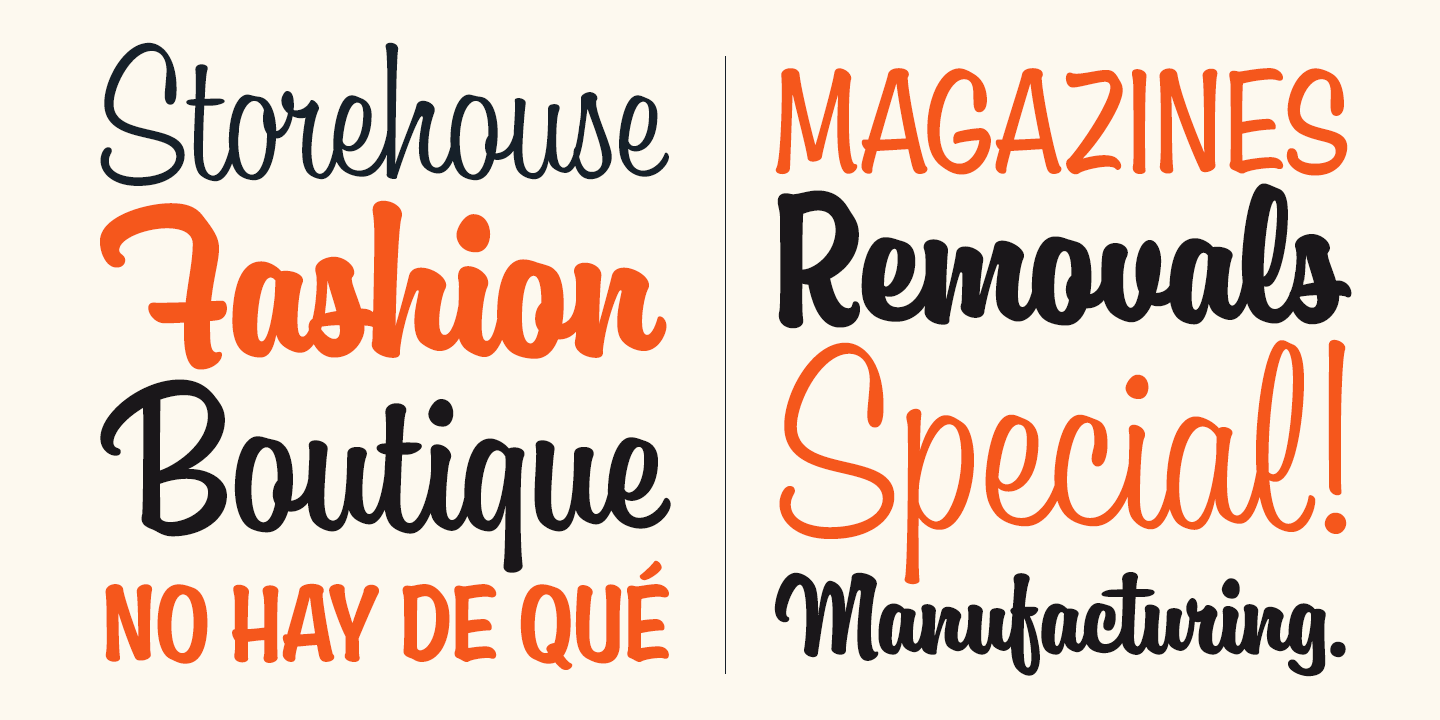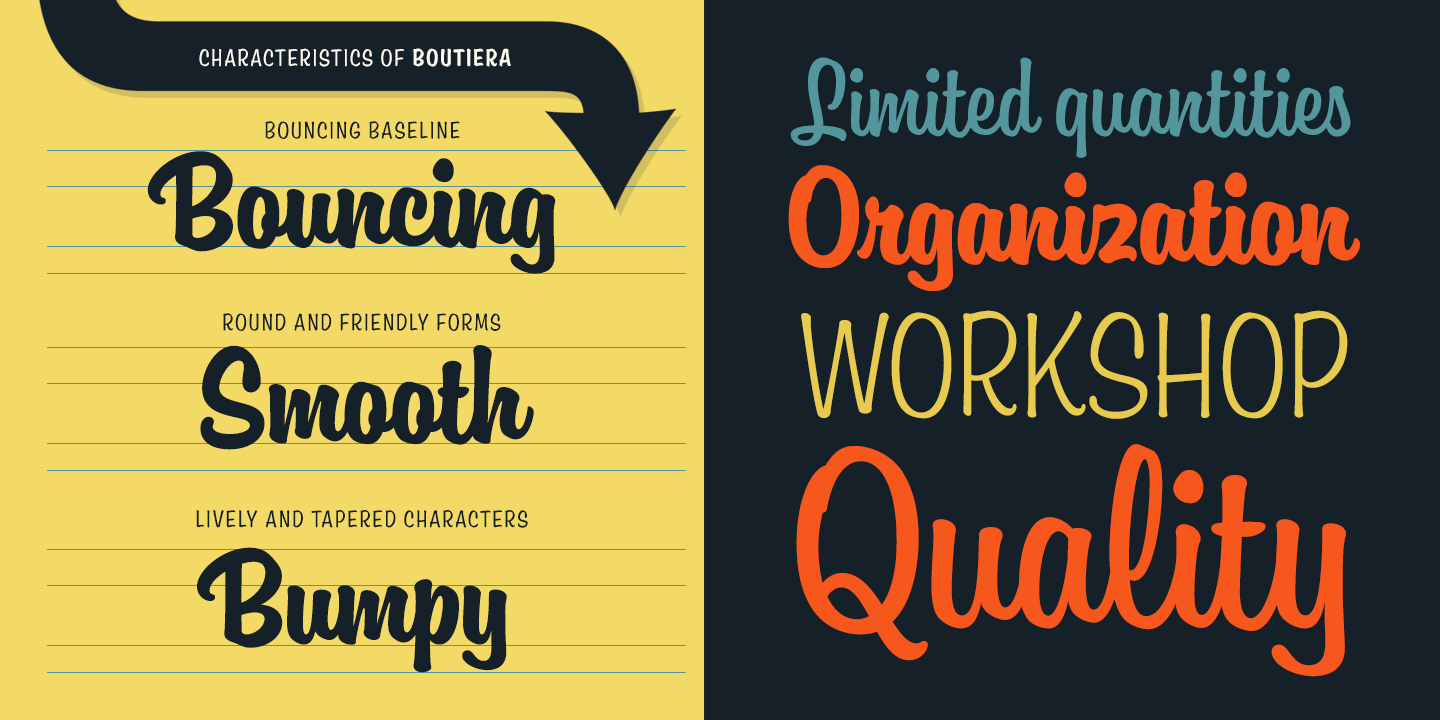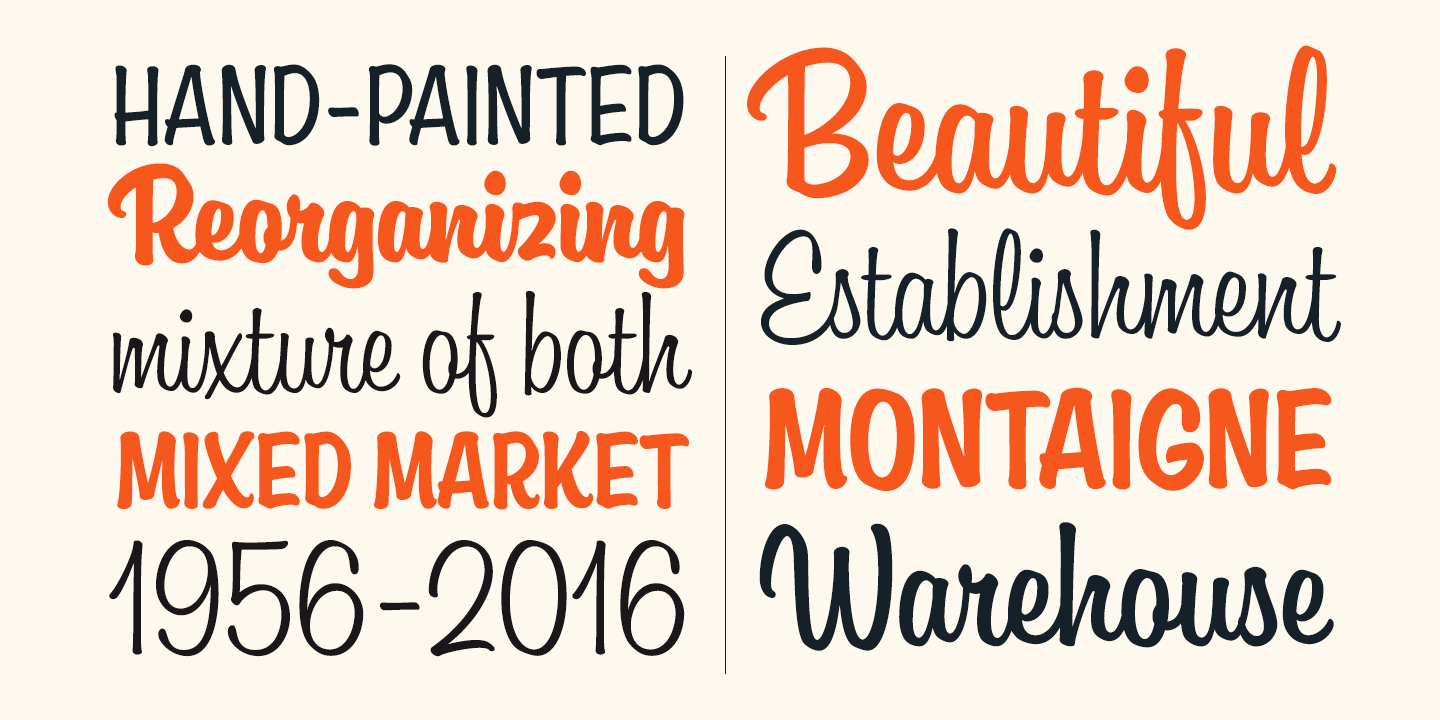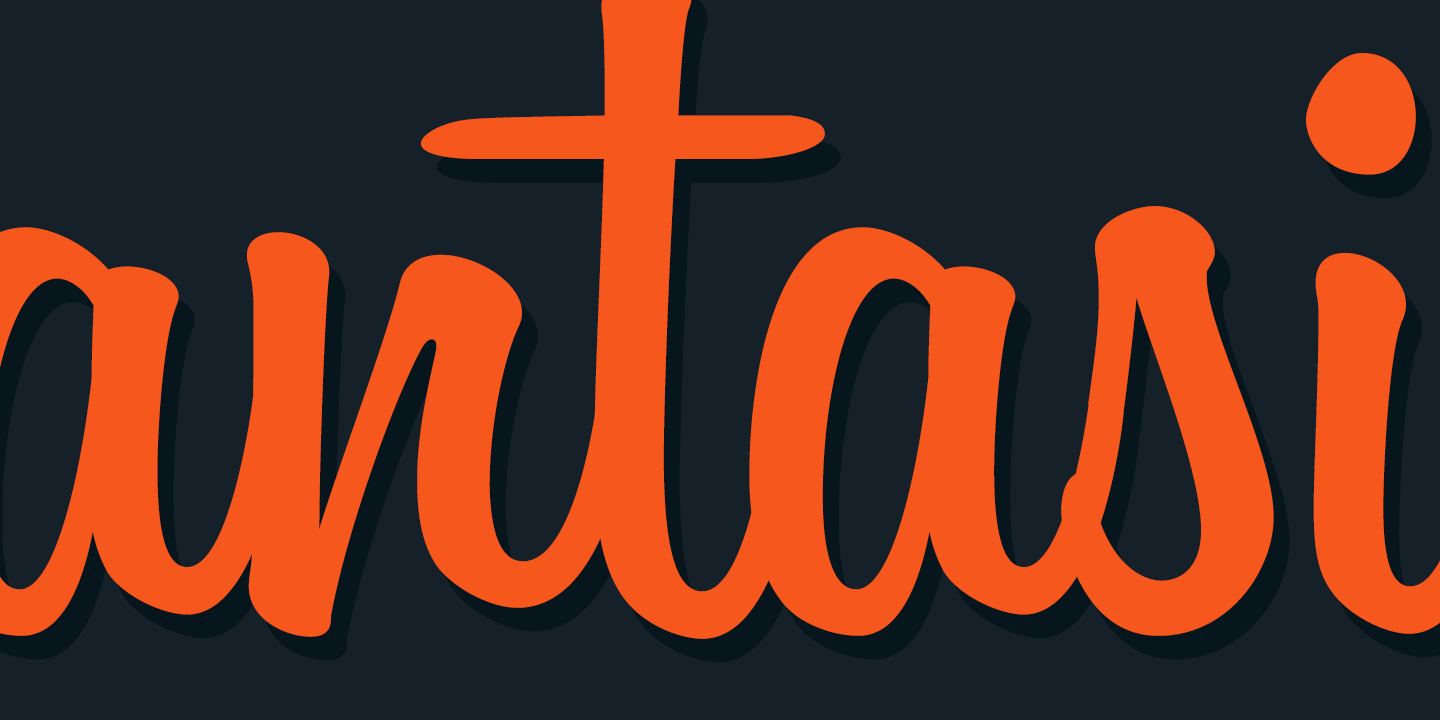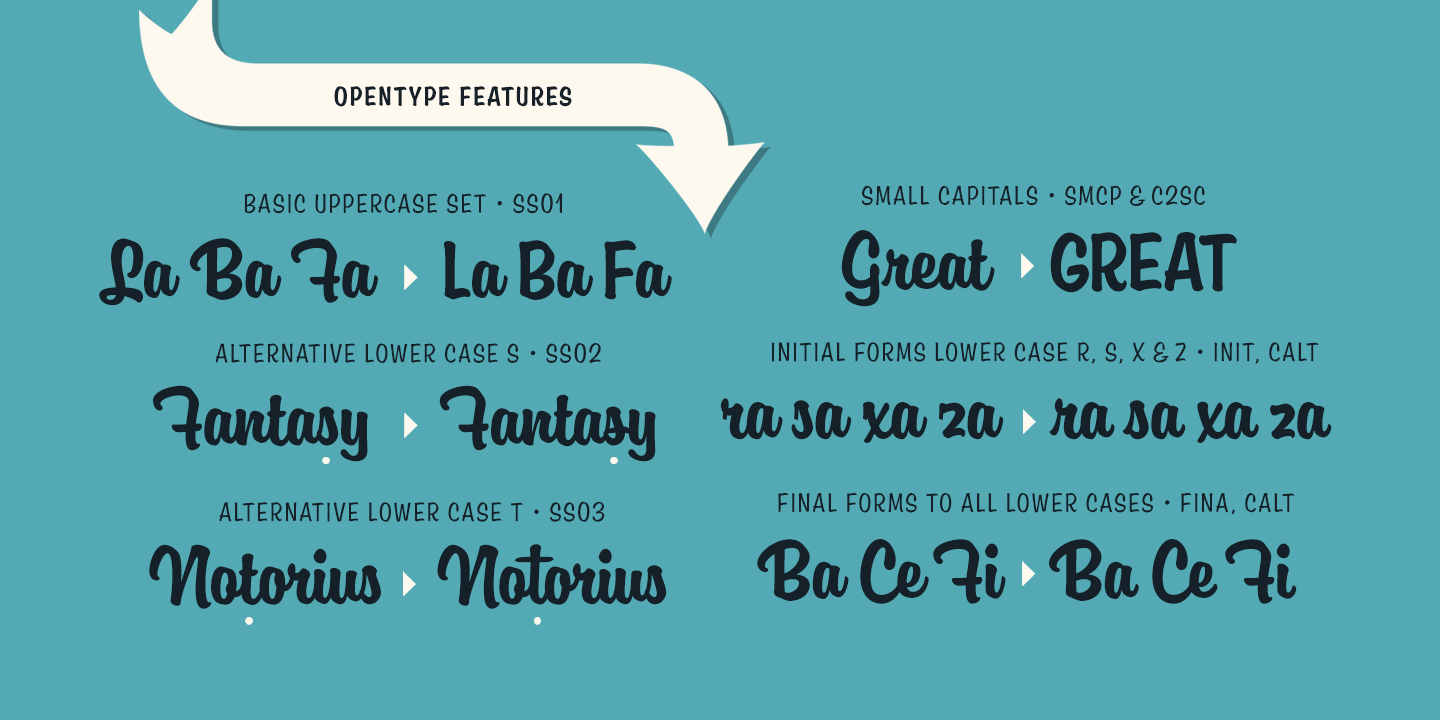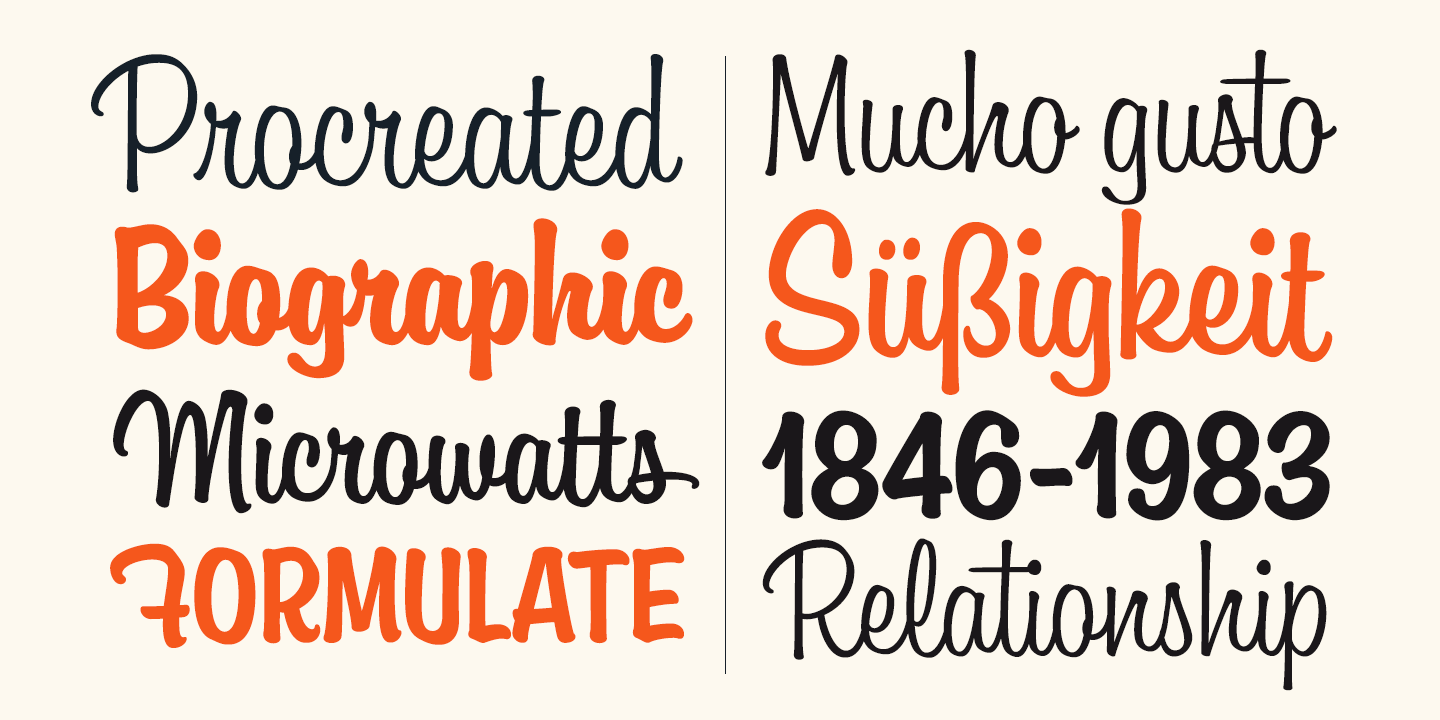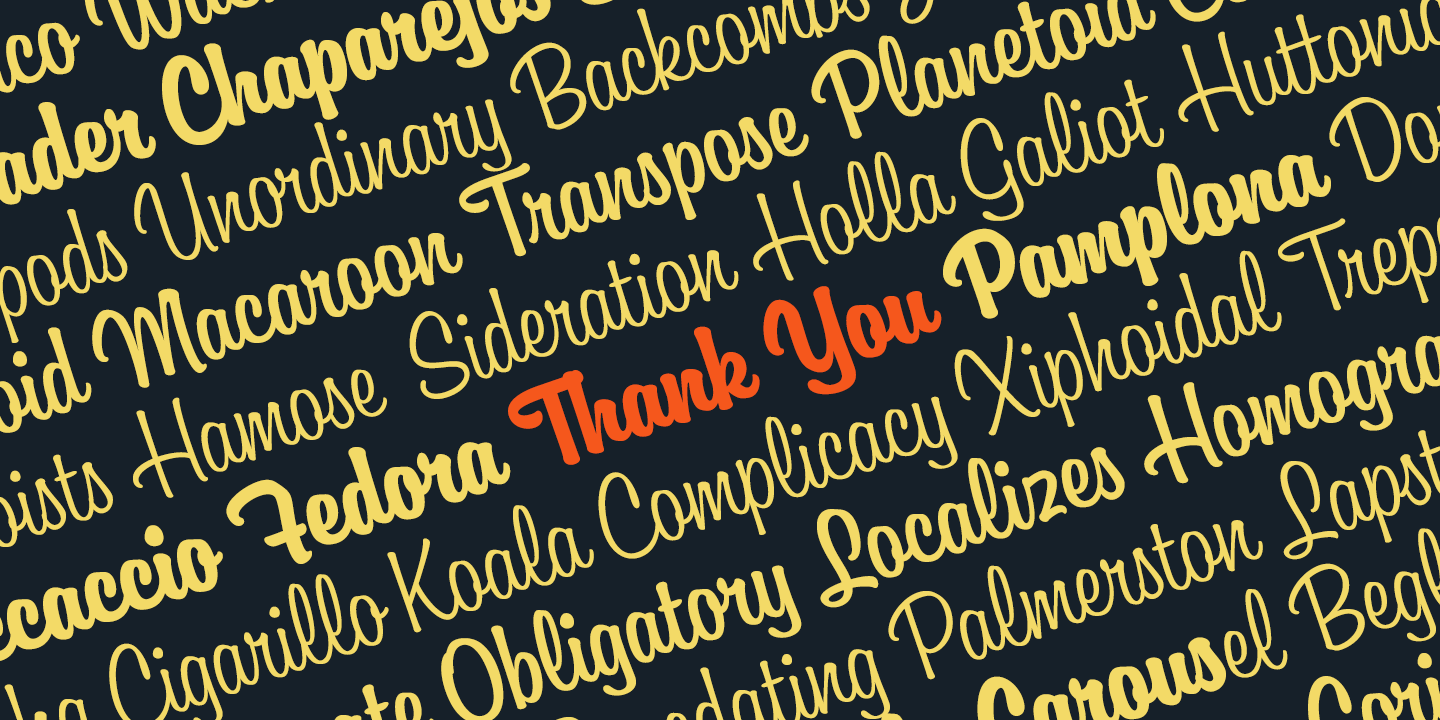
Boutiera
Buy NowBoutiera is an upright and soft vintage script with a modern twist. Its main characteristics are bouncy baseline, round forms and bumpy stems. These qualities gives Boutiera its casual, friendly and handmade looks. It has three weights to give contrast and options to your typographic elements and designs. Boutiera has two sets of Upper cases; Slightly swashy and more basic one. The more basic set can be used in all caps.
Boutiera has positional alternate characters; Initial forms to letters like r, s, x and z. And final forms to all lower cases. Those final forms have a shortened upstroke to give more balanced and harmonized look. You can use these easily by enabling Contextual Aternates from OpenType menu. It also has alternate versions of letters t and s.
You can use Boutiera on logos, packages, on titles or wherever you need a friendly and lively font.